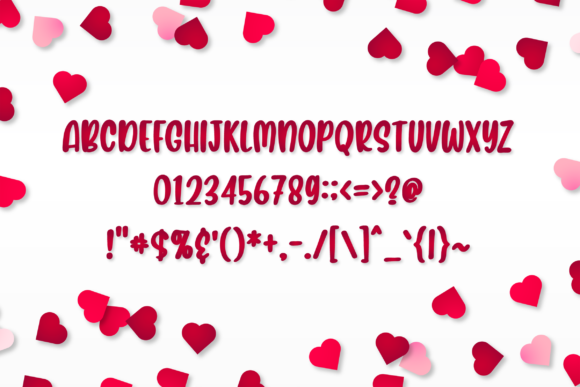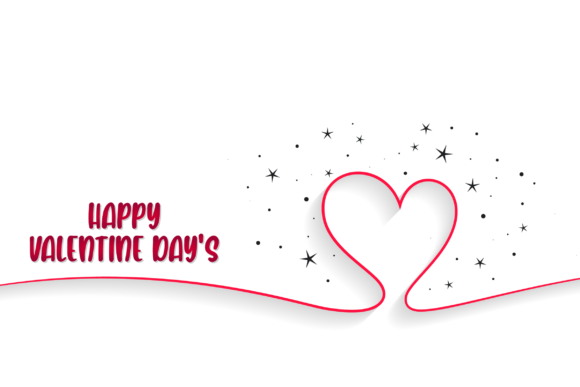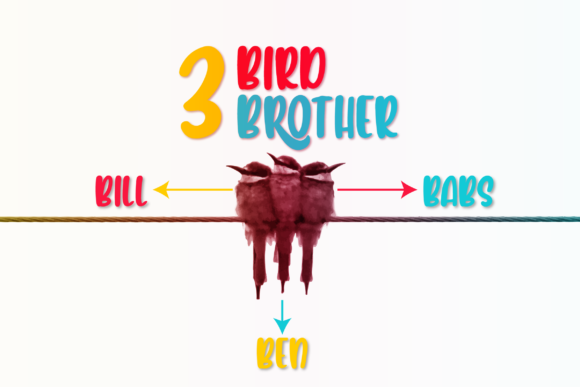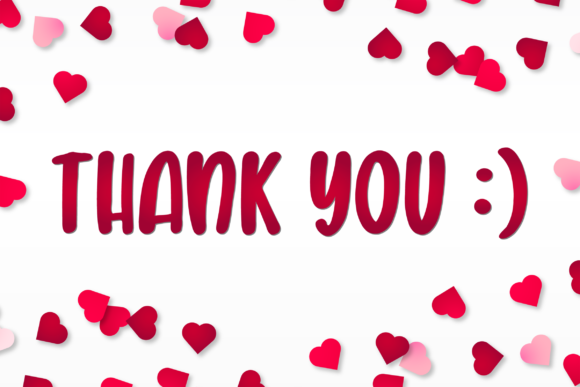
Introducing Clumshe Font: The Quirky and Romantic Display Font for Valentine’s Day
Are you looking for a font that captures the essence of love and romance? Look no further than Clumshe Font, a quirky and charming display font that’s perfect for all things Valentine’s Day. With its unique blend of elegance and playfulness, Clumshe Font is sure to make your designs stand out and leave a lasting impression.
The Story Behind Clumshe Font
Clumshe Font is a carefully crafted display font that’s designed to evoke the feeling of love and romance. Its quirky and charming design makes it perfect for use in Valentine’s Day-themed designs, such as greeting cards, posters, and social media graphics. The font’s creator aimed to create a font that would be both elegant and playful, making it suitable for a wide range of design projects.
What Makes Clumshe Font So Special?
So, what sets Clumshe Font apart from other fonts? Here are just a few of its unique features:
- Quirky and Romantic Design: Clumshe Font has a distinctive, hand-drawn feel that’s both quirky and romantic. Its unique design makes it perfect for creating eye-catching designs that will stand out from the crowd.
- Perfect for Valentine’s Day: With its romantic charm and playful design, Clumshe Font is the perfect choice for any Valentine’s Day-themed design project.
- Elegant and Playful: Clumshe Font strikes the perfect balance between elegance and playfulness, making it suitable for a wide range of design projects, from romantic getaway brochures to Valentine’s Day-themed crafts.
How to Use Clumshe Font in Your Designs
Clumshe Font is a versatile display font that can be used in a variety of design projects, including:
- Greeting Cards: Add a touch of romance to your Valentine’s Day greeting cards with Clumshe Font.
- Posters and Flyers: Create eye-catching posters and flyers for Valentine’s Day-themed events or promotions.
- Social Media Graphics: Use Clumshe Font to create engaging social media graphics that will help you stand out from the crowd.
- Crafts and DIY Projects: Add a personal touch to your Valentine’s Day-themed crafts and DIY projects with Clumshe Font.
Tips for Getting the Most Out of Clumshe Font
Here are a few tips for getting the most out of Clumshe Font:
- Experiment with Different Sizes and Colors: Clumshe Font looks great in a variety of sizes and colors, so don’t be afraid to experiment and find the perfect combination for your design.
- Pair with Other Fonts: Clumshe Font pairs well with a variety of other fonts, so try combining it with other fonts to create a unique and eye-catching design.
- Use it Sparingly: Because Clumshe Font is a display font, it’s best used sparingly. Use it to highlight key information or add a touch of personality to your design.
Clumshe Font is a quirky and romantic display font that’s perfect for all things Valentine’s Day. With its unique blend of elegance and playfulness, it’s sure to make your designs stand out and leave a lasting impression. Whether you’re a designer, crafter, or DIY enthusiast, Clumshe Font is a great choice for any Valentine’s Day-themed design project. So why not fall in love with Clumshe Font and make it a part of your design toolkit?